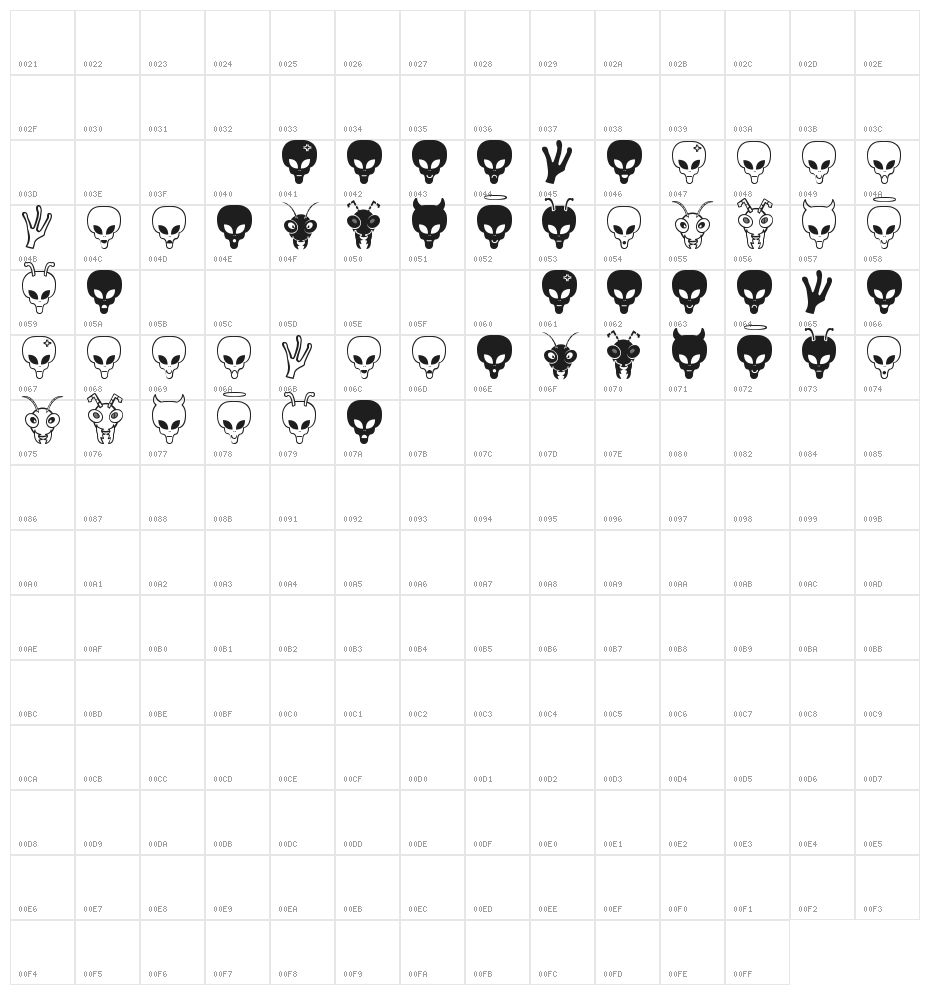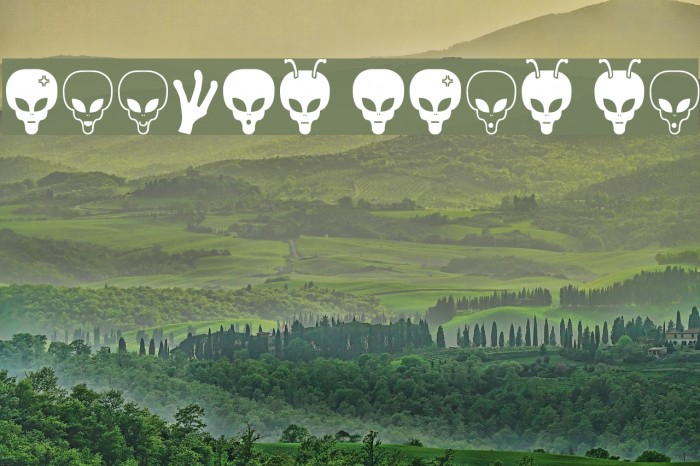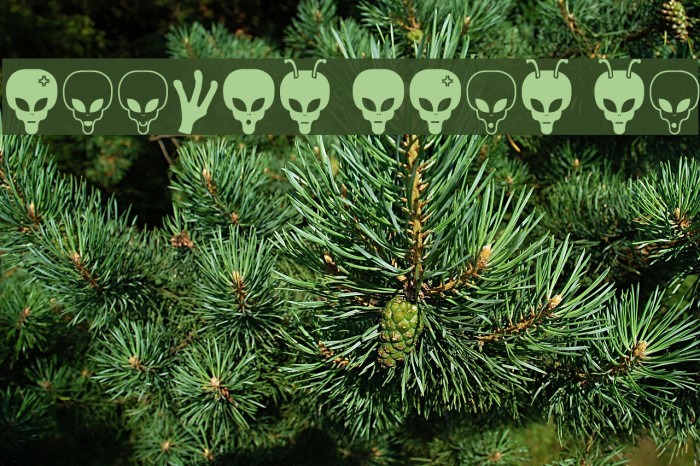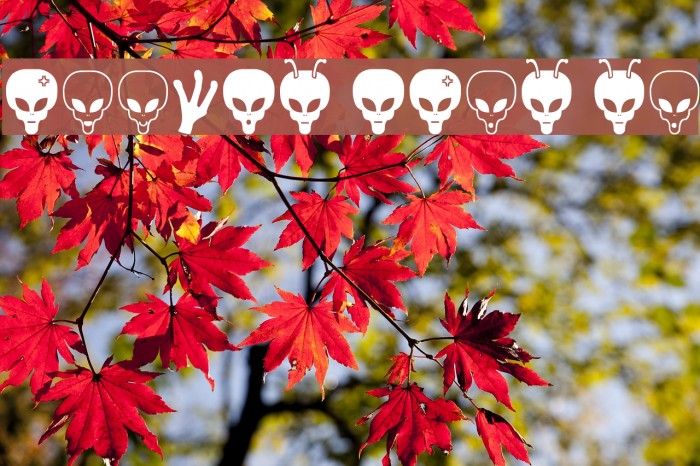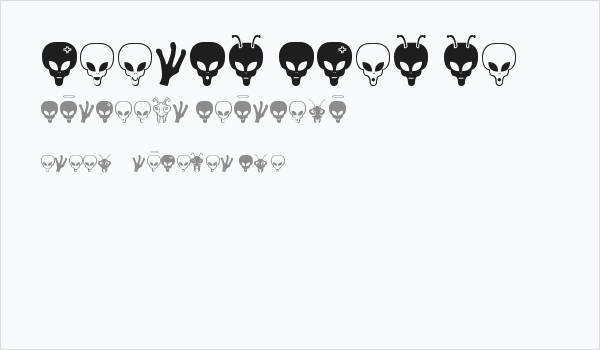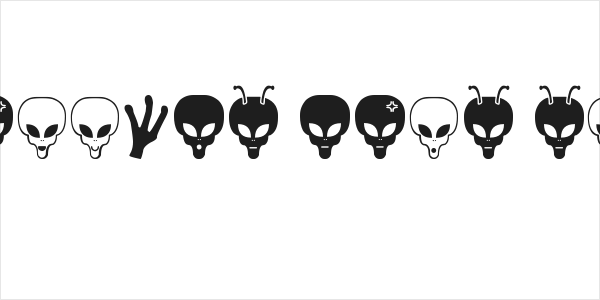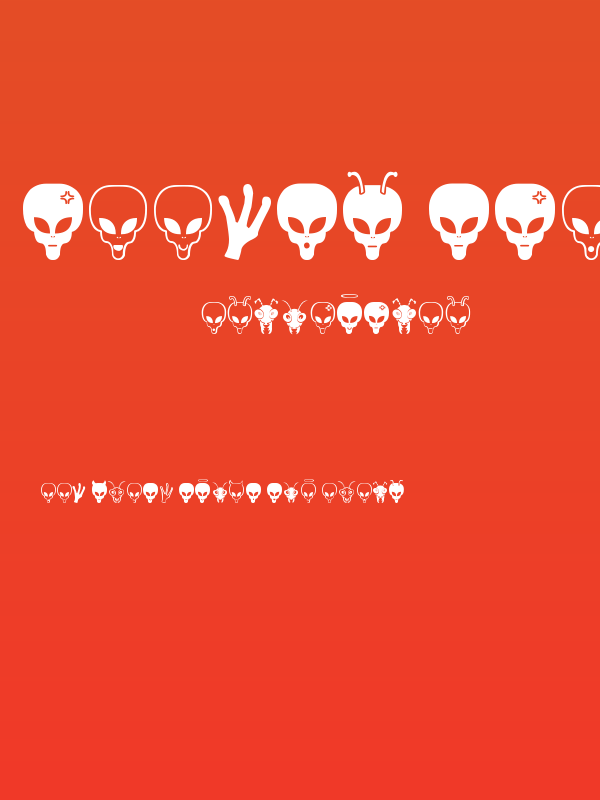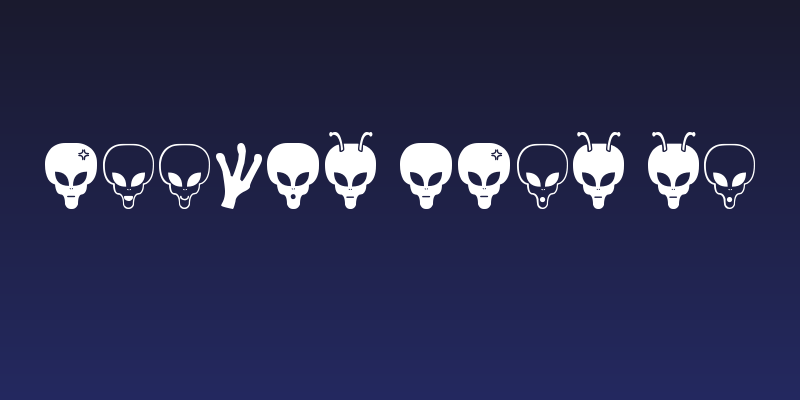
Aliens Bats St Font
Aliens Bats St Description
A decorative display font featuring a variety of alien and extraterrestrial-themed glyphs, including stylized alien heads, hands, and other sci-fi motifs in both filled and outlined styles.
| Overall Style | Decorative, Sci-Fi, Novelty |
| Use Case | Logos, Posters, Themed Headlines, Party Invitations |
| Proposed Projects | Perfect for Halloween designs, sci-fi posters, party invitations, themed event branding, and novelty merchandise. |